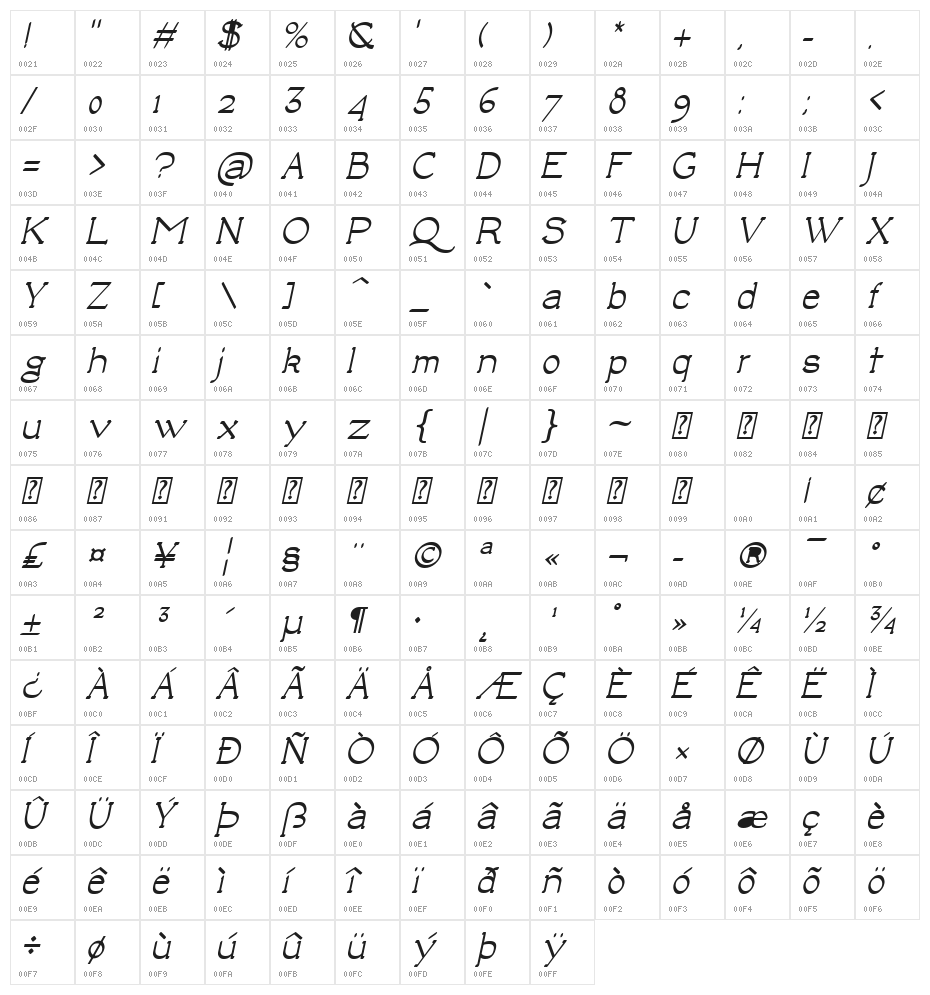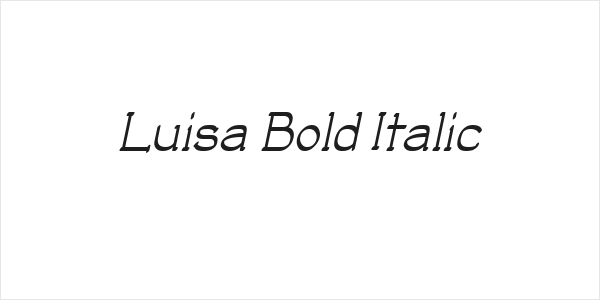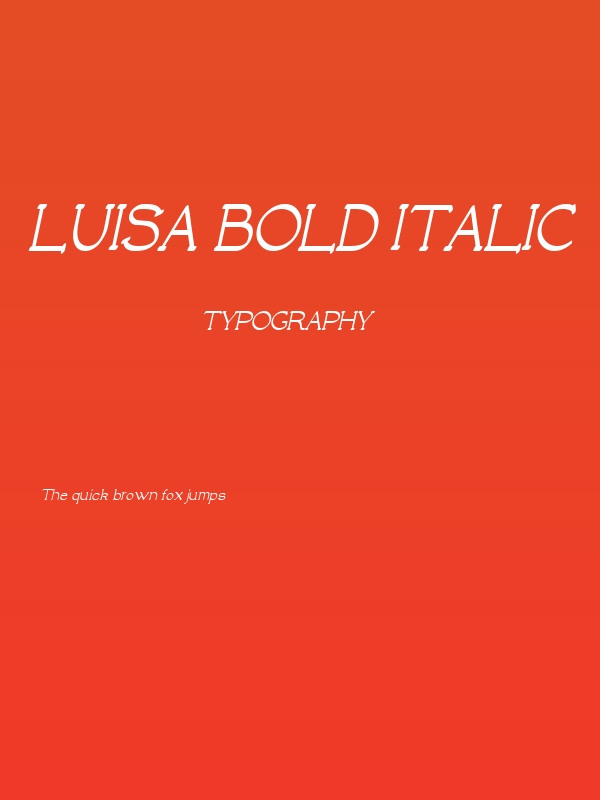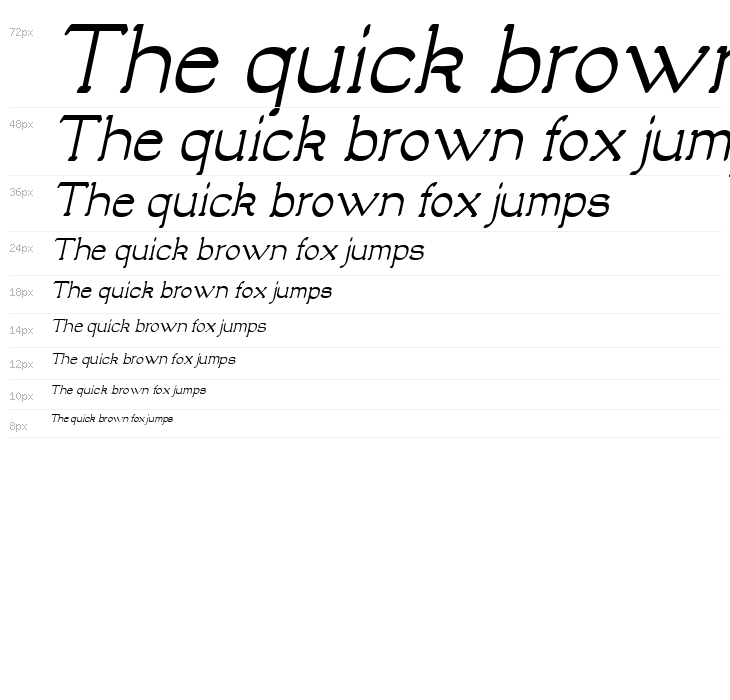
Luisa Bold Italic Font
Luisa Bold Italic Description
This font exhibits a dynamic and elegant style, characterized by its italicized and bold appearance. The letters have a slight slant, adding a sense of movement and sophistication. The strokes are consistent and smooth, with a moderate contrast between thick and thin lines, enhancing readability while maintaining a stylish flair. The uppercase letters are distinct and commanding, while the lowercase letters offer a more fluid and connected look. Numbers and special characters are crafted with the same attention to detail, ensuring uniformity across all elements.